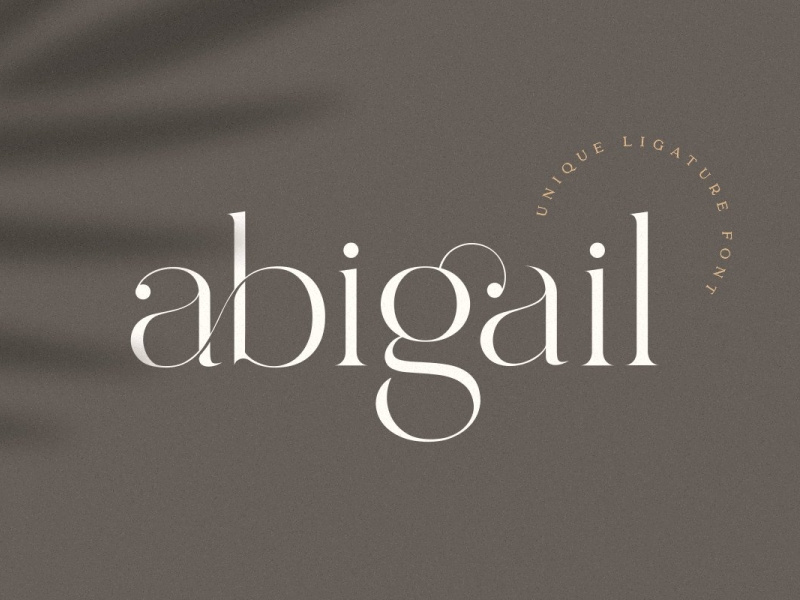
Abigail Ligature Font Free . Free for personal use only. Abigail € by graphix line studio. Based on our experience as a graphic designer. Abigail is a unique and very elegant font for brand and logo design. Trusted by millions + easy to use font files + full support. — abigail is a unique and very elegant font for brand and logo design. Abigail is an unique and very elegant font for brand and logo design. download and install the abigail font by fanastudio. this is the demo version of abigail script with default lowercase and uppercase characters and numbers. The abigail font has been downloaded 2,794 times. Based on our experience as a.
— abigail is a unique and very elegant font for brand and logo design. Abigail is an unique and very elegant font for brand and logo design. Trusted by millions + easy to use font files + full support. this is the demo version of abigail script with default lowercase and uppercase characters and numbers. Based on our experience as a graphic designer. Abigail is a unique and very elegant font for brand and logo design. download and install the abigail font by fanastudio. The abigail font has been downloaded 2,794 times. Abigail € by graphix line studio. Based on our experience as a.
Abigail Font
Abigail Ligature Font Free Free for personal use only. Abigail is a unique and very elegant font for brand and logo design. this is the demo version of abigail script with default lowercase and uppercase characters and numbers. Based on our experience as a. Free for personal use only. Abigail is an unique and very elegant font for brand and logo design. download and install the abigail font by fanastudio. Abigail € by graphix line studio. The abigail font has been downloaded 2,794 times. Based on our experience as a graphic designer. Trusted by millions + easy to use font files + full support. — abigail is a unique and very elegant font for brand and logo design.
Abigail Ligature Font by Best Fonts on Dribbble Abigail Ligature Font Free The abigail font has been downloaded 2,794 times. Abigail € by graphix line studio. Trusted by millions + easy to use font files + full support. Free for personal use only. Abigail is an unique and very elegant font for brand and logo design. this is the demo version of abigail script with default lowercase and uppercase characters and. Abigail Ligature Font Free.
Abigail Unique Ligature Font Design Cuts Abigail Ligature Font Free The abigail font has been downloaded 2,794 times. Based on our experience as a graphic designer. Abigail is an unique and very elegant font for brand and logo design. — abigail is a unique and very elegant font for brand and logo design. this is the demo version of abigail script with default lowercase and uppercase characters and. Abigail Ligature Font Free.
Abigail Unique Ligature Font Design Cuts Abigail Ligature Font Free this is the demo version of abigail script with default lowercase and uppercase characters and numbers. Abigail is a unique and very elegant font for brand and logo design. — abigail is a unique and very elegant font for brand and logo design. Based on our experience as a graphic designer. Abigail is an unique and very elegant. Abigail Ligature Font Free.
abigail unique ligature font Logo design, Fonts design, Ligature Abigail Ligature Font Free Abigail is an unique and very elegant font for brand and logo design. download and install the abigail font by fanastudio. Based on our experience as a. Free for personal use only. The abigail font has been downloaded 2,794 times. Abigail is a unique and very elegant font for brand and logo design. — abigail is a unique. Abigail Ligature Font Free.
Abigail Unique Ligature Font Design Cuts Abigail Ligature Font Free Based on our experience as a. this is the demo version of abigail script with default lowercase and uppercase characters and numbers. Abigail € by graphix line studio. — abigail is a unique and very elegant font for brand and logo design. Based on our experience as a graphic designer. Abigail is an unique and very elegant font. Abigail Ligature Font Free.
Abigail Unique Ligature Font Design Cuts Abigail Ligature Font Free Based on our experience as a. Free for personal use only. — abigail is a unique and very elegant font for brand and logo design. this is the demo version of abigail script with default lowercase and uppercase characters and numbers. Based on our experience as a graphic designer. download and install the abigail font by fanastudio.. Abigail Ligature Font Free.
Abigail Unique Ligature Font Behance Abigail Ligature Font Free — abigail is a unique and very elegant font for brand and logo design. download and install the abigail font by fanastudio. Trusted by millions + easy to use font files + full support. The abigail font has been downloaded 2,794 times. Based on our experience as a. this is the demo version of abigail script with. Abigail Ligature Font Free.
Abigail Unique Ligature Font Design Cuts Abigail Ligature Font Free Based on our experience as a graphic designer. Abigail € by graphix line studio. Based on our experience as a. The abigail font has been downloaded 2,794 times. this is the demo version of abigail script with default lowercase and uppercase characters and numbers. download and install the abigail font by fanastudio. — abigail is a unique. Abigail Ligature Font Free.
Abigail Font Download Unique Ligature Font UI Freebies Abigail Ligature Font Free — abigail is a unique and very elegant font for brand and logo design. Abigail is a unique and very elegant font for brand and logo design. Trusted by millions + easy to use font files + full support. Abigail is an unique and very elegant font for brand and logo design. Free for personal use only. Based on. Abigail Ligature Font Free.